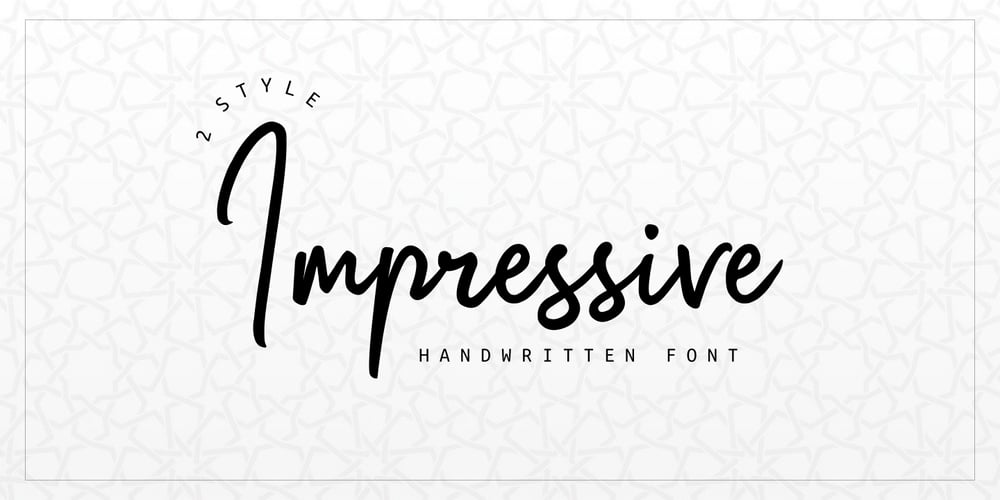
Impressive Font Family was designed by Hasan Udin and published by Ghuroba Studio. Impressive contains 2 styles and family package options. Impressive is a light and charming handwritten font with incredible style, and comes in two styles: Regular and Italic. Get inspired by its modern simplicity. It’s perfect for logos, branding, photography, invitations, watermarks, advertisements, product designs, stationery, labels, product packaging, special events or anything that need a hand-written style.